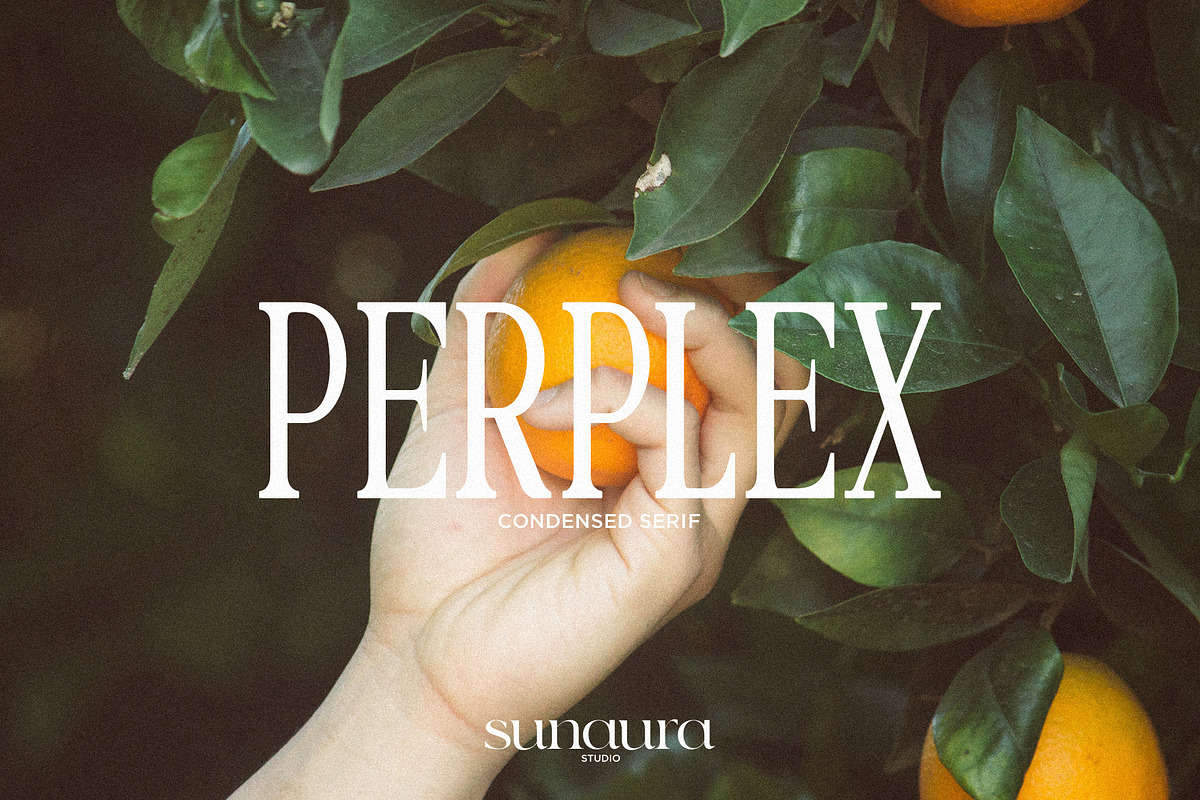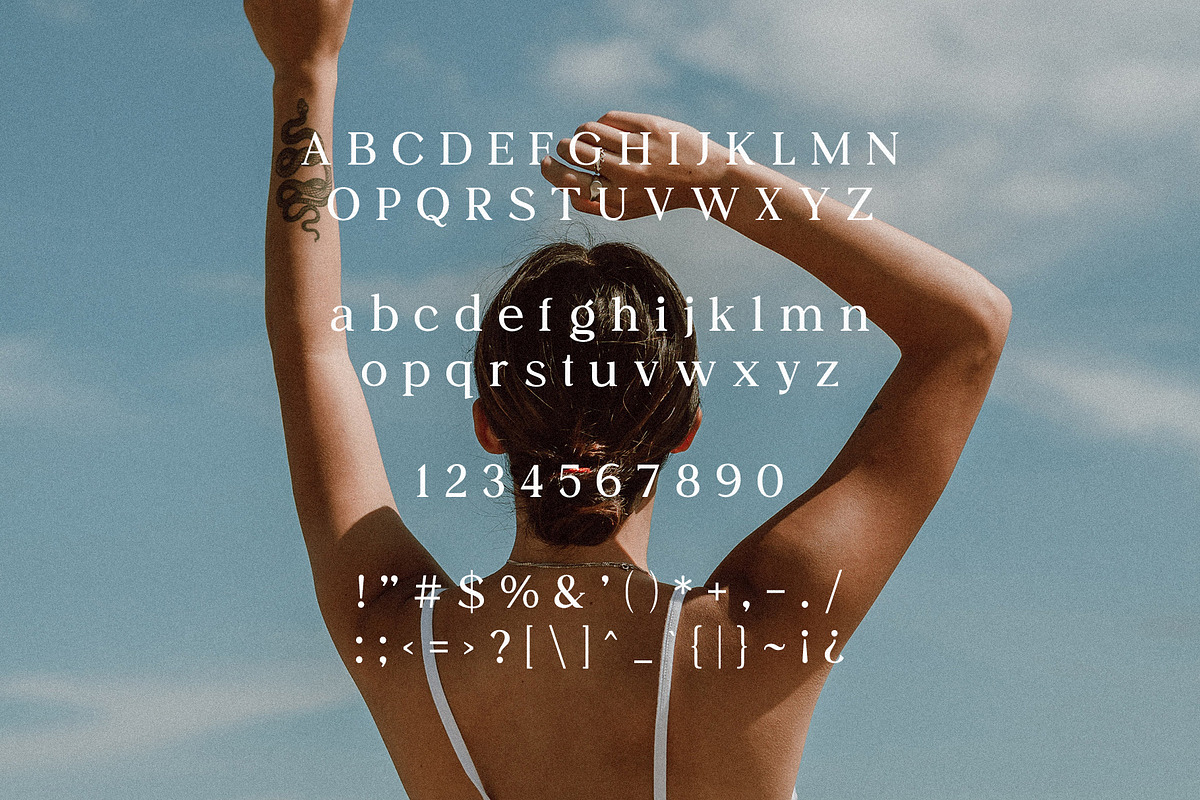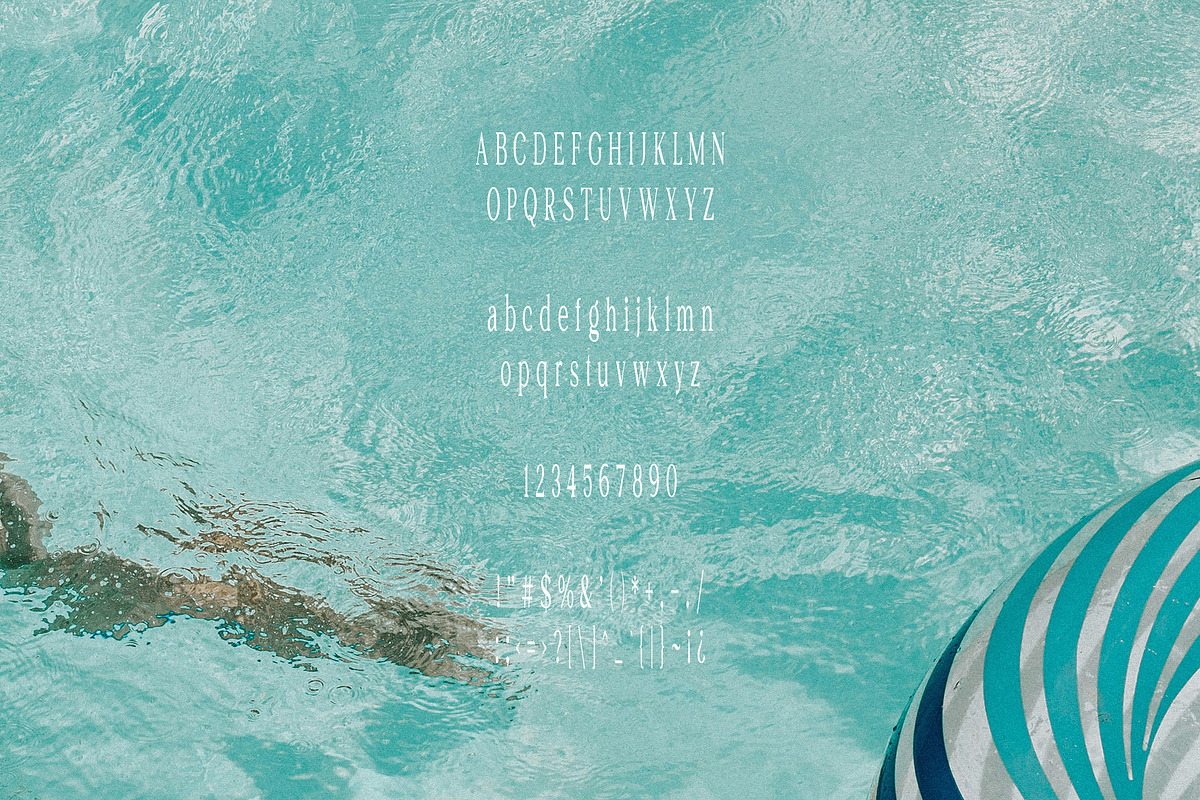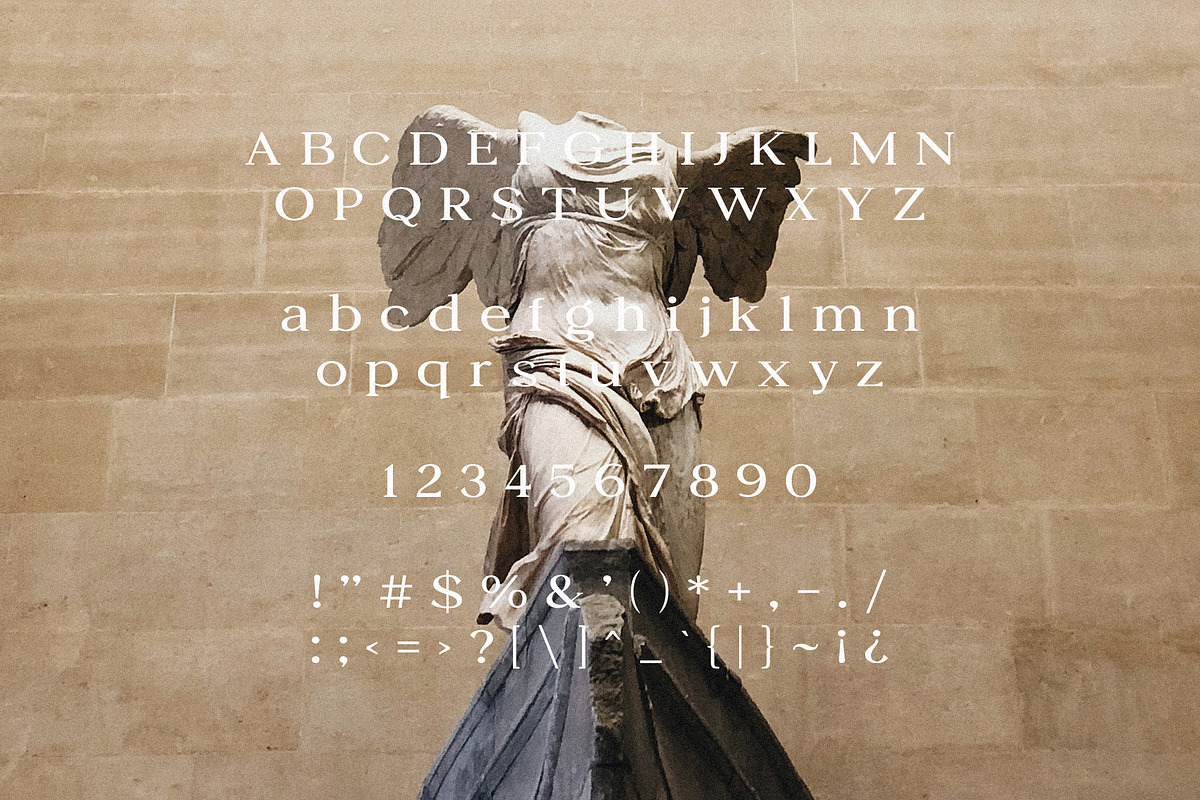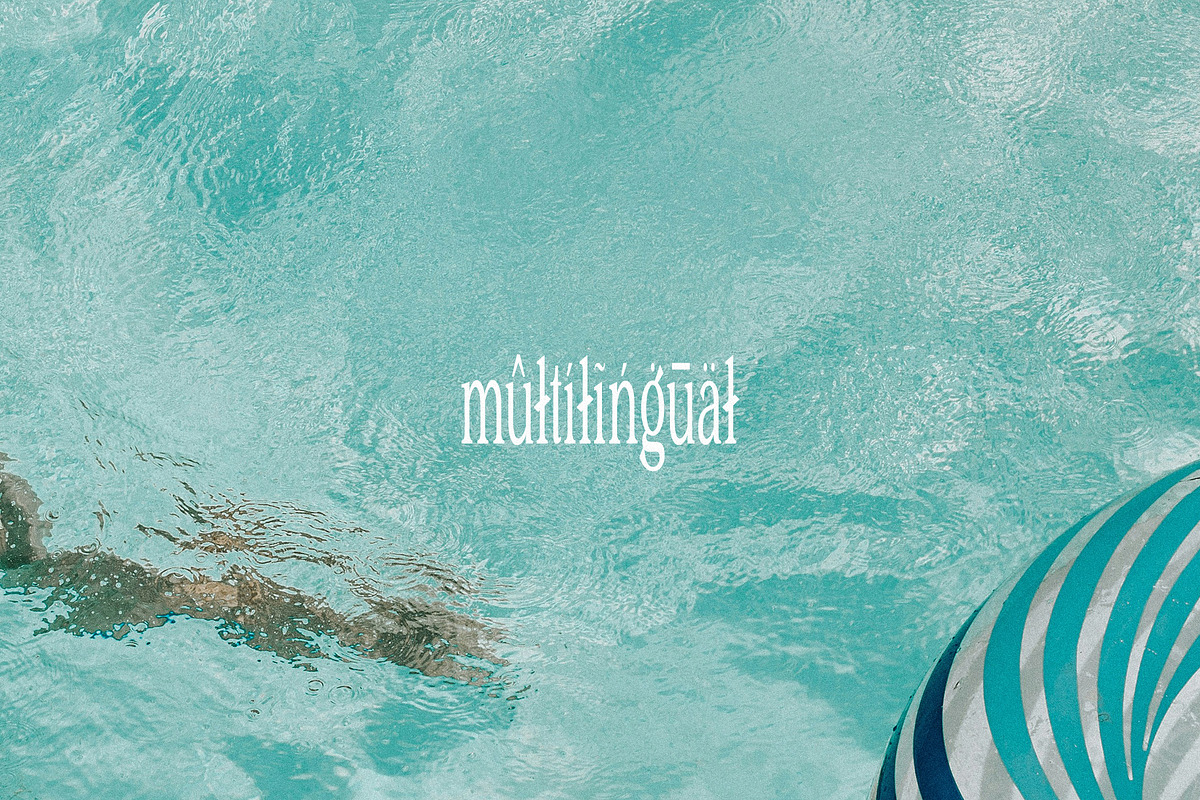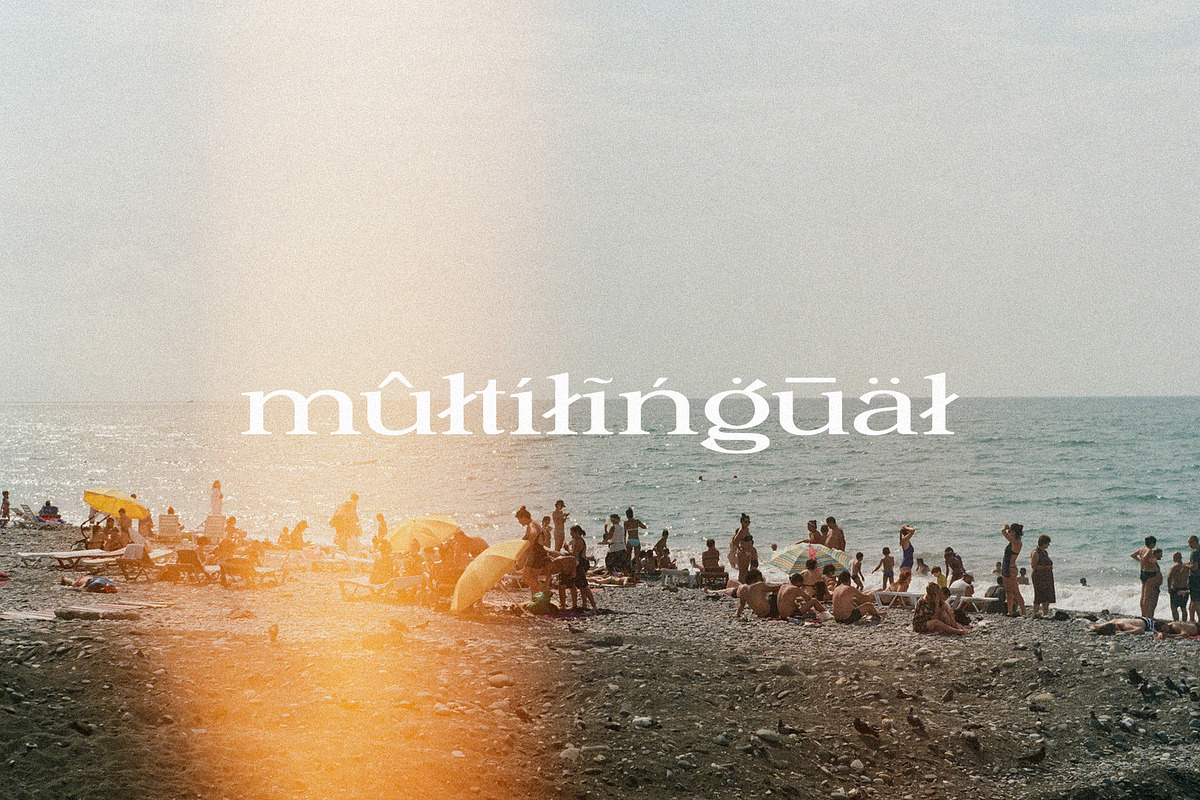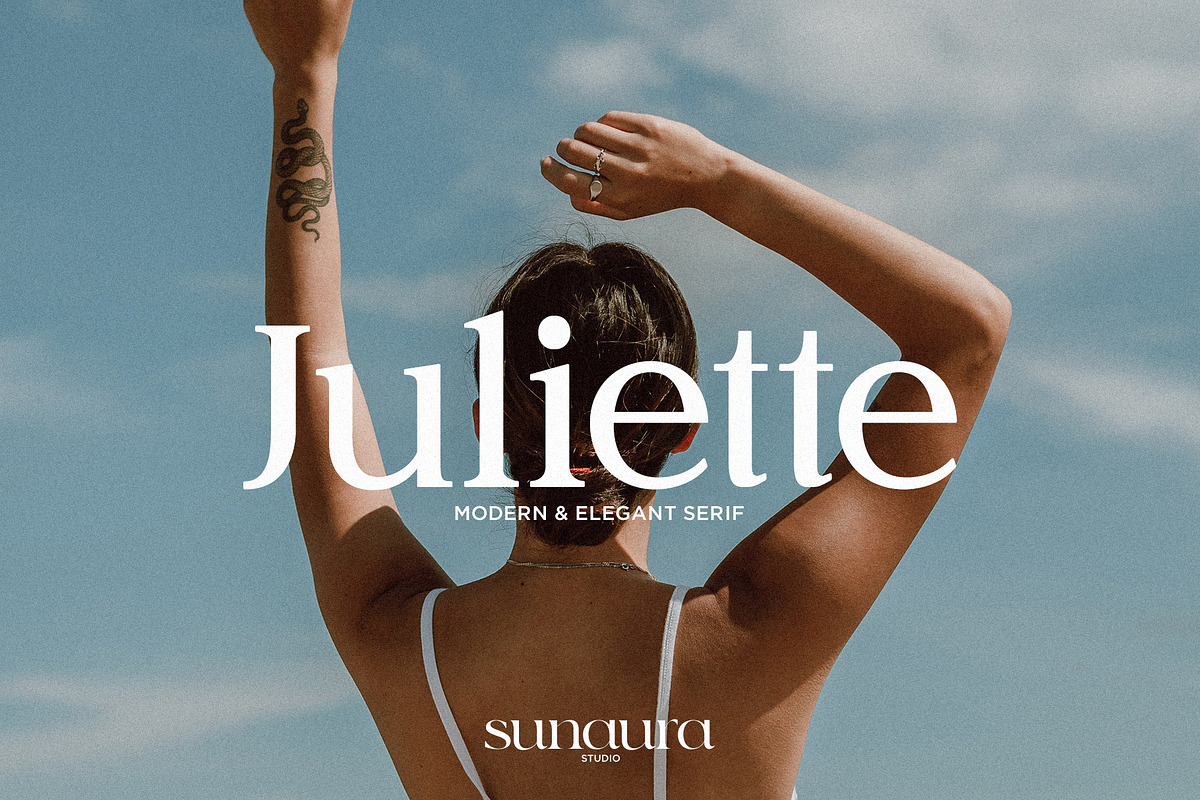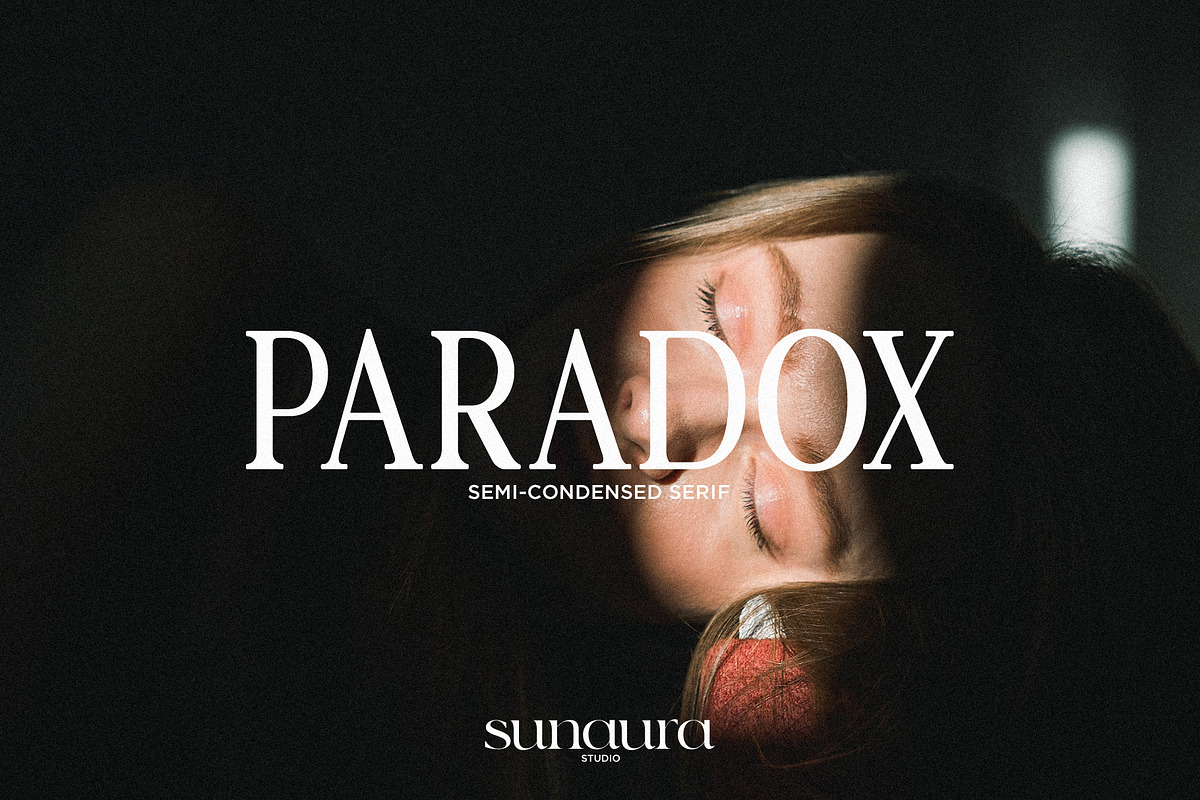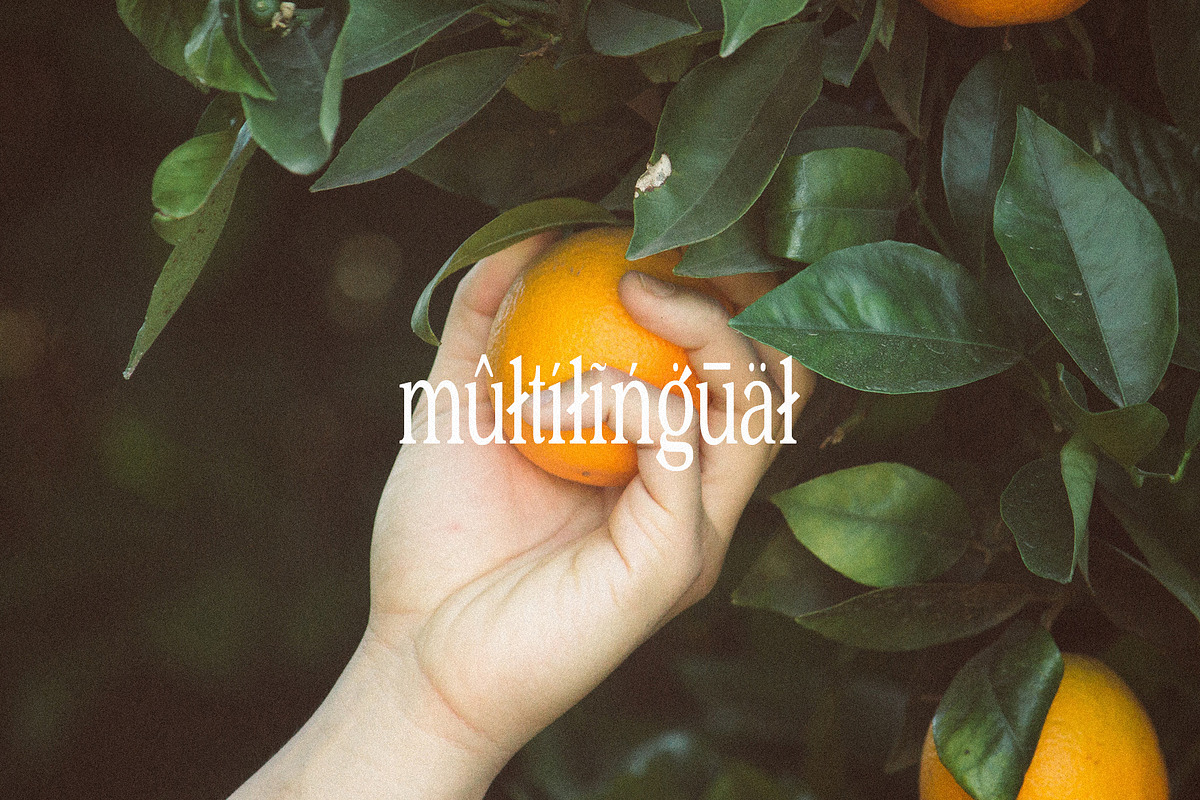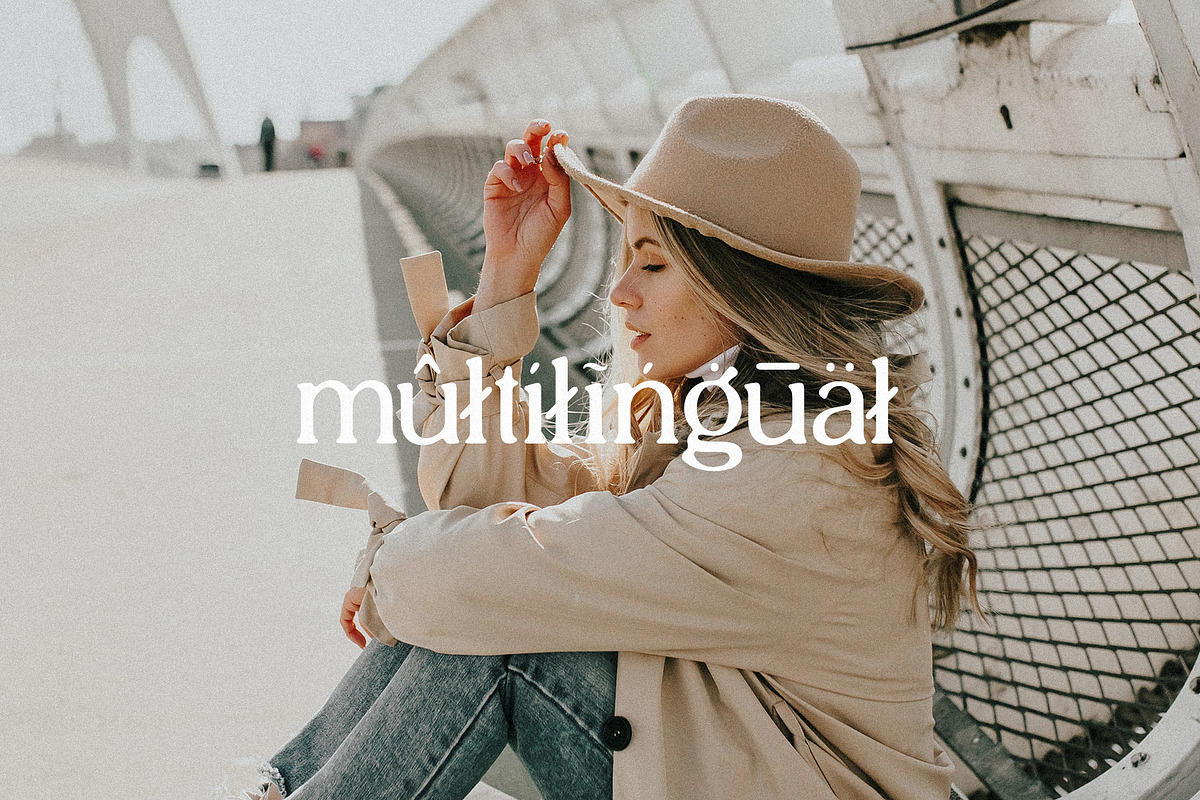
Modern & Elegant Font Bundle
Modern & Elegant Font Bundle - Elevate your designs with this carefully curated collection of 10 sophisticated fonts. Blending contemporary style with timeless elegance, this bundle is perfect for branding, invitations, logos, and more. Each font brings its own unique charm—clean lines, refined curves, and stylish flair to make your work stand out.
Bundle includes:
- Juliette - Modern & Elegant Serif https://crmrkt.com/Ge6xQp
- Euphoria - Modern & Round Serif https://crmrkt.com/0qMN9A
- Bresta - Vintage & Elegant Serif https://crmrkt.com/pl6524
- Solitude - Vintage & Round Serif https://crmrkt.com/7pB0qw
- PARADOX - Semi-Condensed Serif https://crmrkt.com/Oeok18
- PERPLEX - Condensed Serif Typeface https://crmrkt.com/Jeko6r
- Elixir - Extra-Condensed Serif https://crmrkt.com/Wr9mdV
- Epiphany - Semi-Expanded Serif https://crmrkt.com/B3xG4A
- Petrichor - Expanded Serif https://crmrkt.com/zX35ad
- MONTE CARLO - Extra-Expanded Serif https://crmrkt.com/vXa5gx